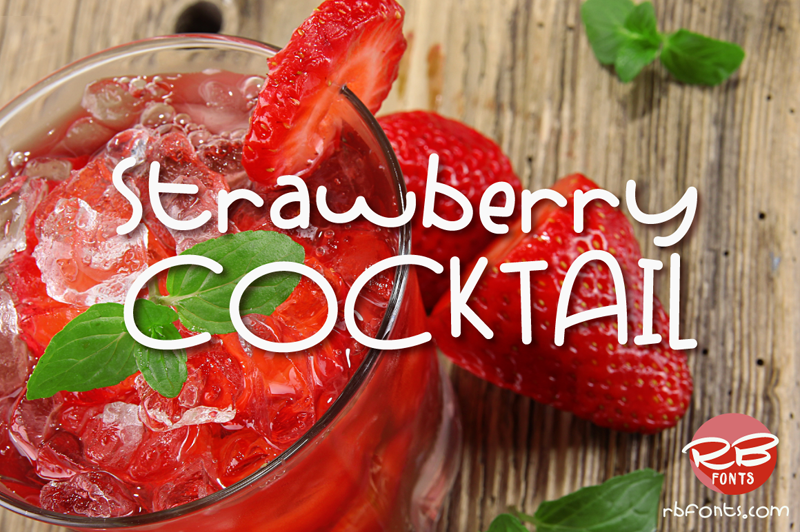
Font name: | Strawberry Cocktail |
Author: | RB Fonts |
Note by RB Fonts | |
Strawberry Cocktail is a stick style straight hand drawn sans serif. You can create nice handmade typography with it either alone or combining it with other scripts for the best result depending on your project, whether it be * logos, * printed quotes, * invitations, * cards, * Instagram posts. FREE FOR PERSONAL USE ONLY. For any COMEERCIAL USE you can purchase a license at rbfonts.com Happy creating and have fun! You may not - sell these fonts or claim them as your own. - edit or rename these fonts. - redistribute these fonts. http://rbfonts.com rbfonts@yahoo.com |